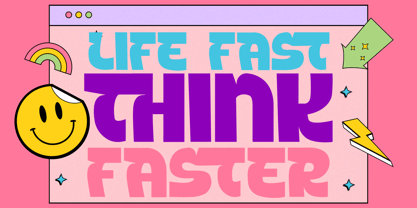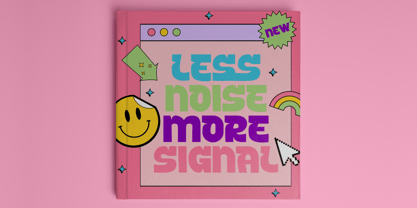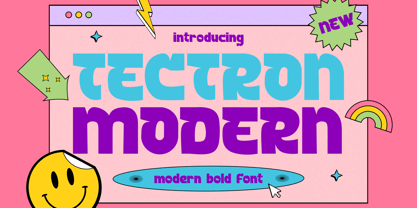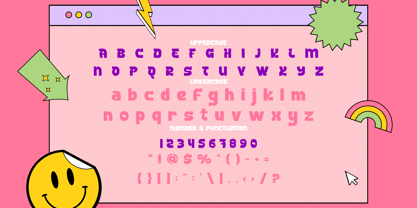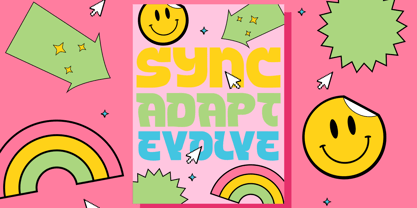
Tectron Modern
by Shanaf
The Tectron Modern Font Family was designed by Yesie Erma Yunita and published by Shanaf. Tectron Modern contains 1 styles. More about this family
Tectron Modern is a bold display font crafted with a playful twist and an unmistakably contemporary edge. Its thick strokes, rounded angles, and unconventional letterforms give it a fresh, youthful energy that pops off the screen or print. Every character is carefully shaped to provide consistency in alignment while maintaining quirky visual appeal. From the curved terminals on letters like "S" and "C" to the softened crossbars in characters like "E" and "A," this font showcases modern design sensibilities fused with retro charm. It works beautifully in colorful layouts, making it a strong choice for projects that demand vibrant, upbeat visuals.
Perfect for branding, packaging, greeting cards, poster titles, magazine layouts, and modern editorial designs, Tectron Modern gives your message a louder and more cheerful voice. The uppercase and lowercase styles offer creative flexibility, while the font’s balanced proportions ensure readability at various sizes. Whether you're designing stickers, book covers, or social media assets, Tectron Modern will make your work stand out with confident flair and distinctive style.
Designers: Yesie Erma Yunita
Foundry: Shanaf